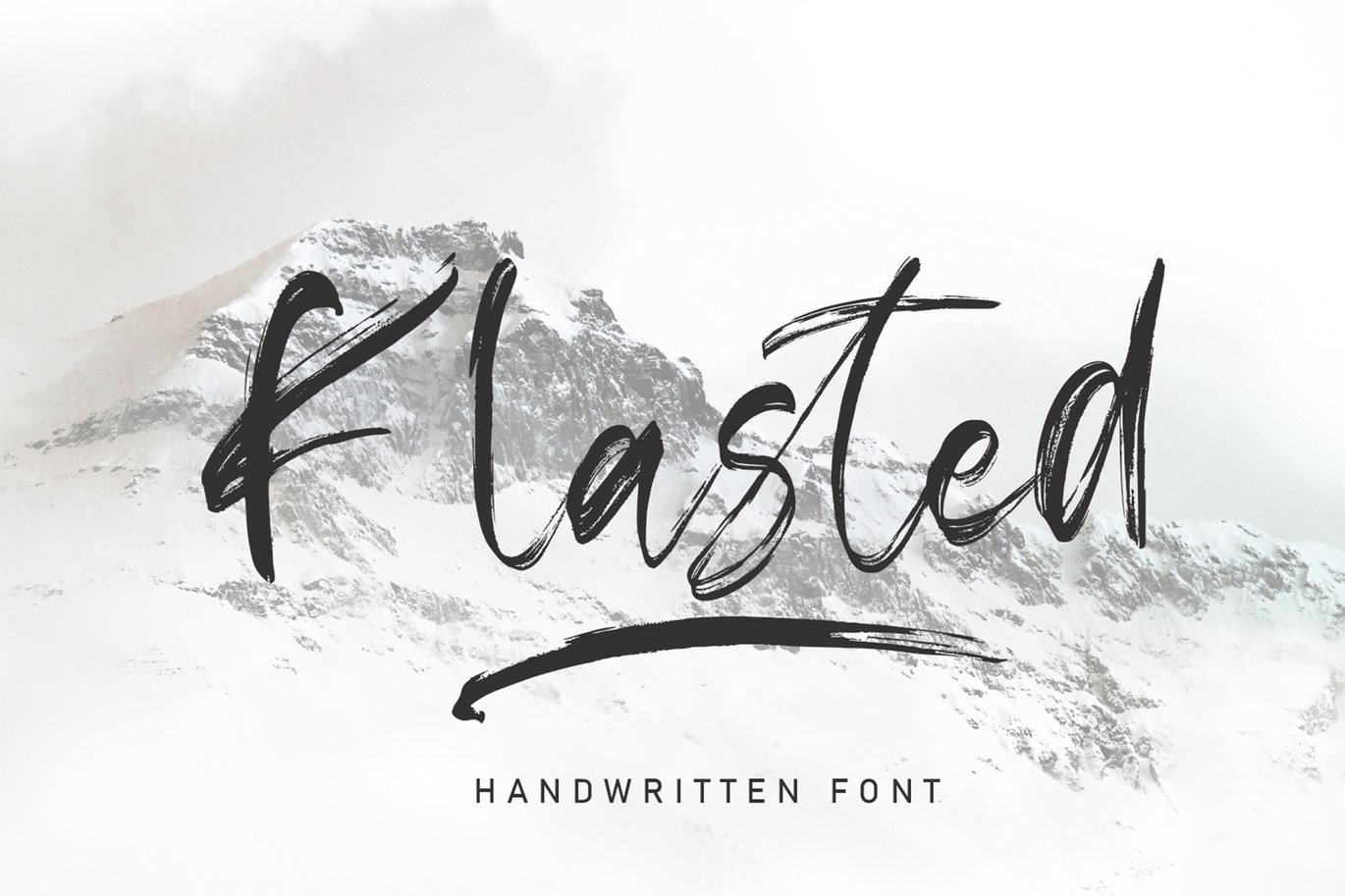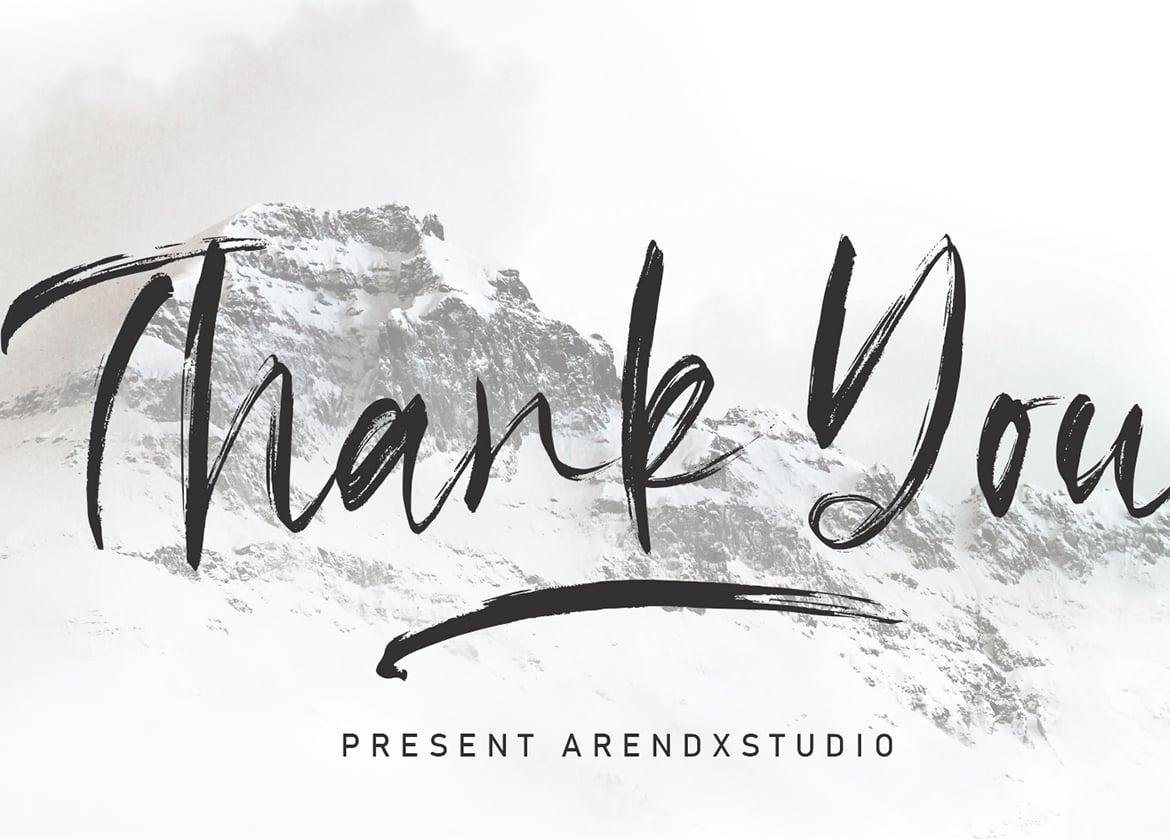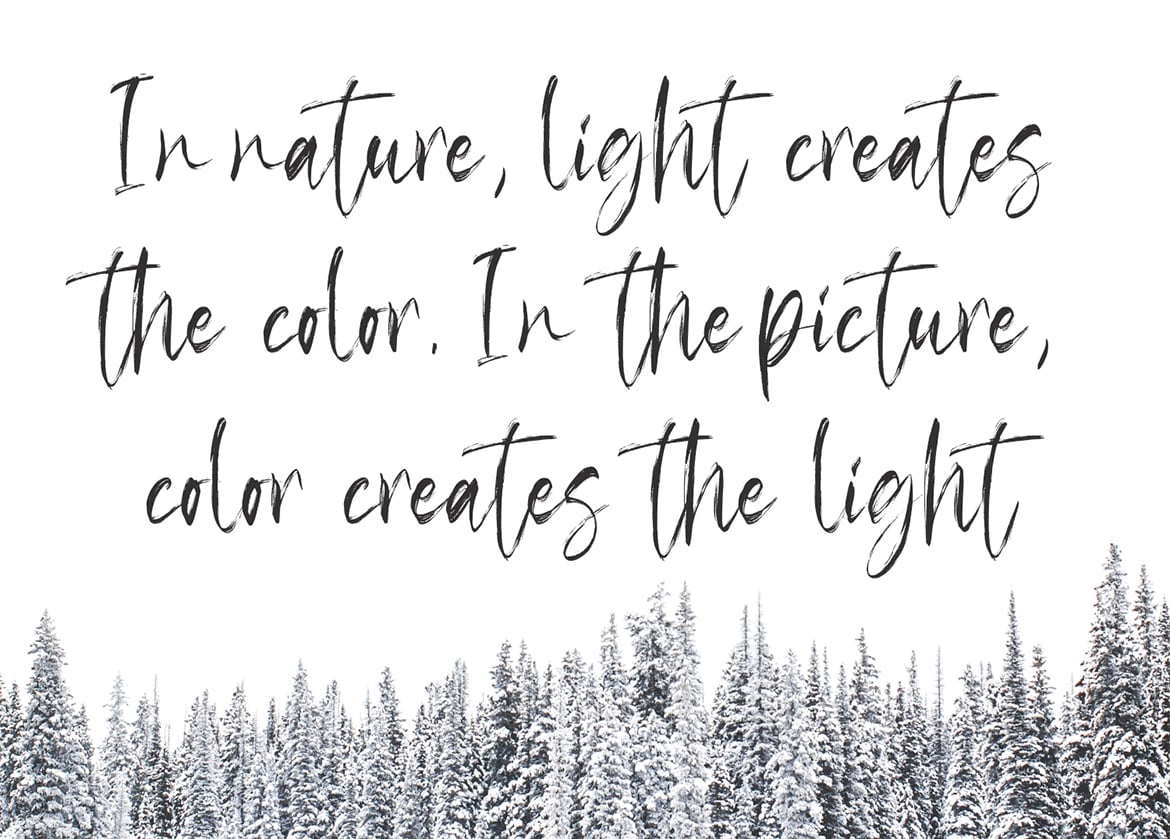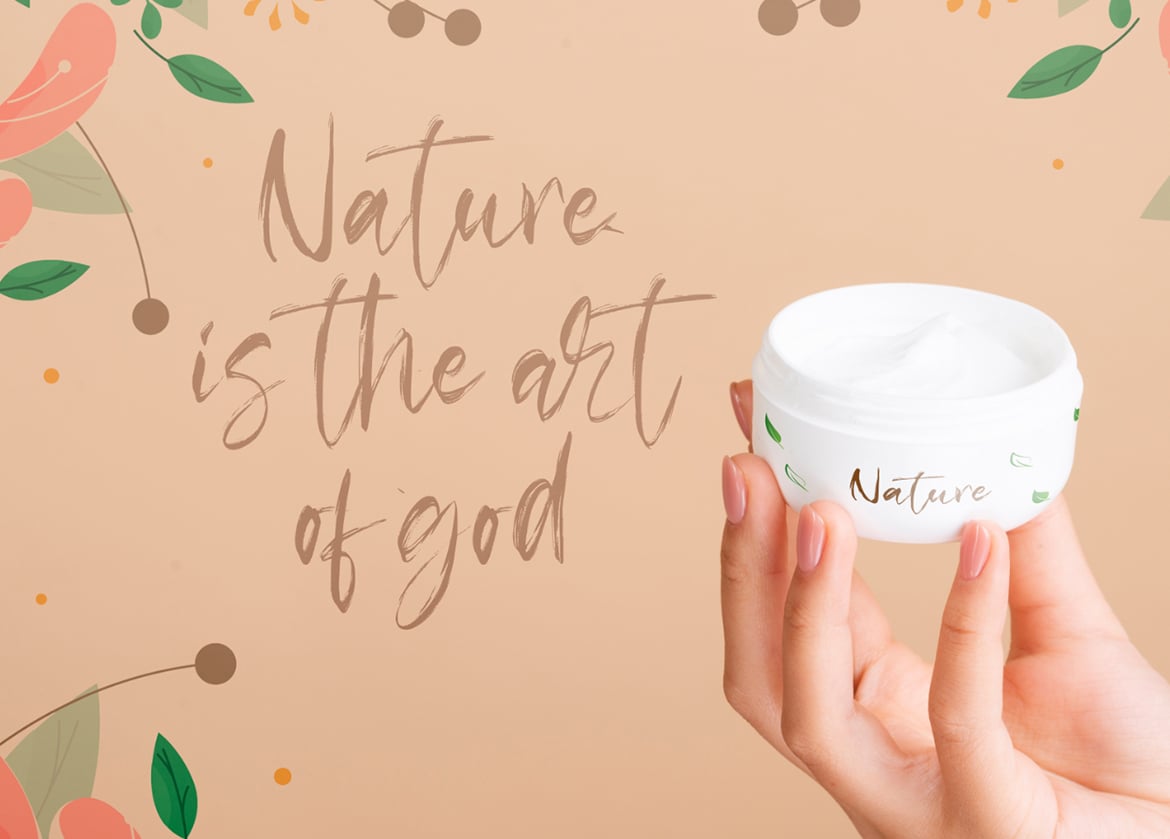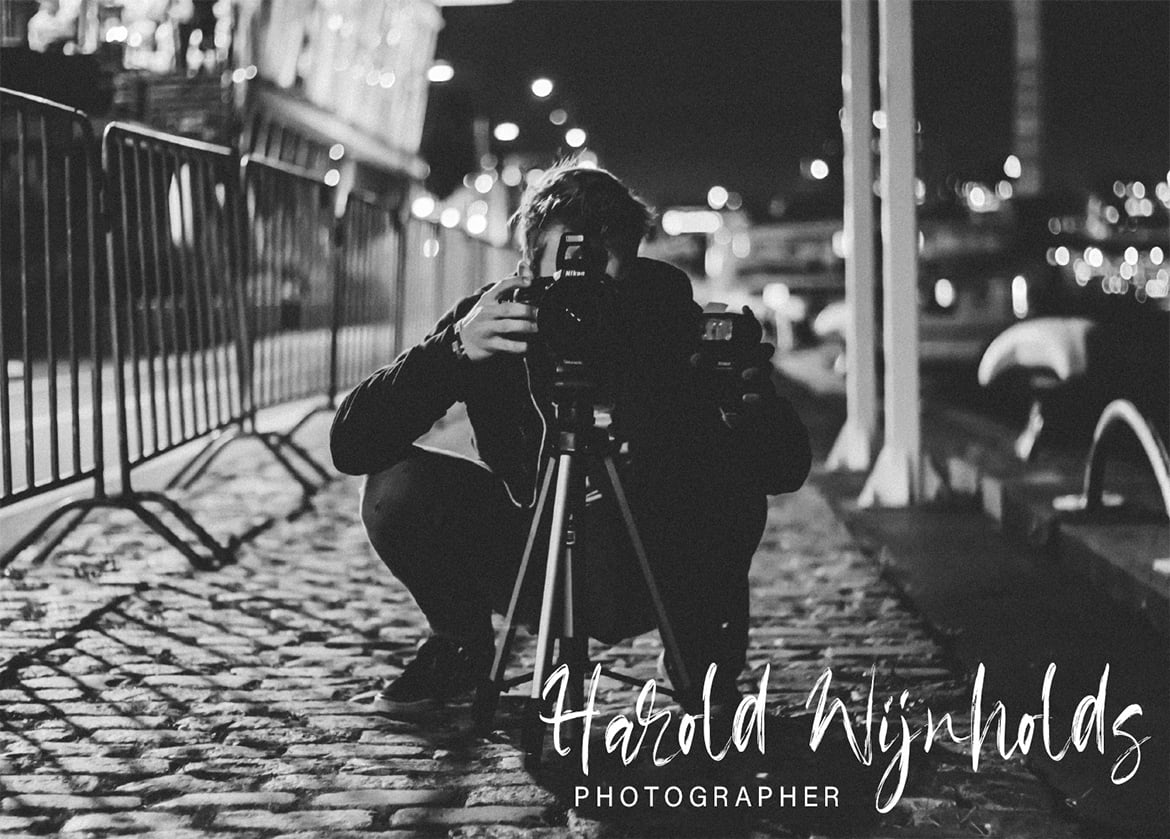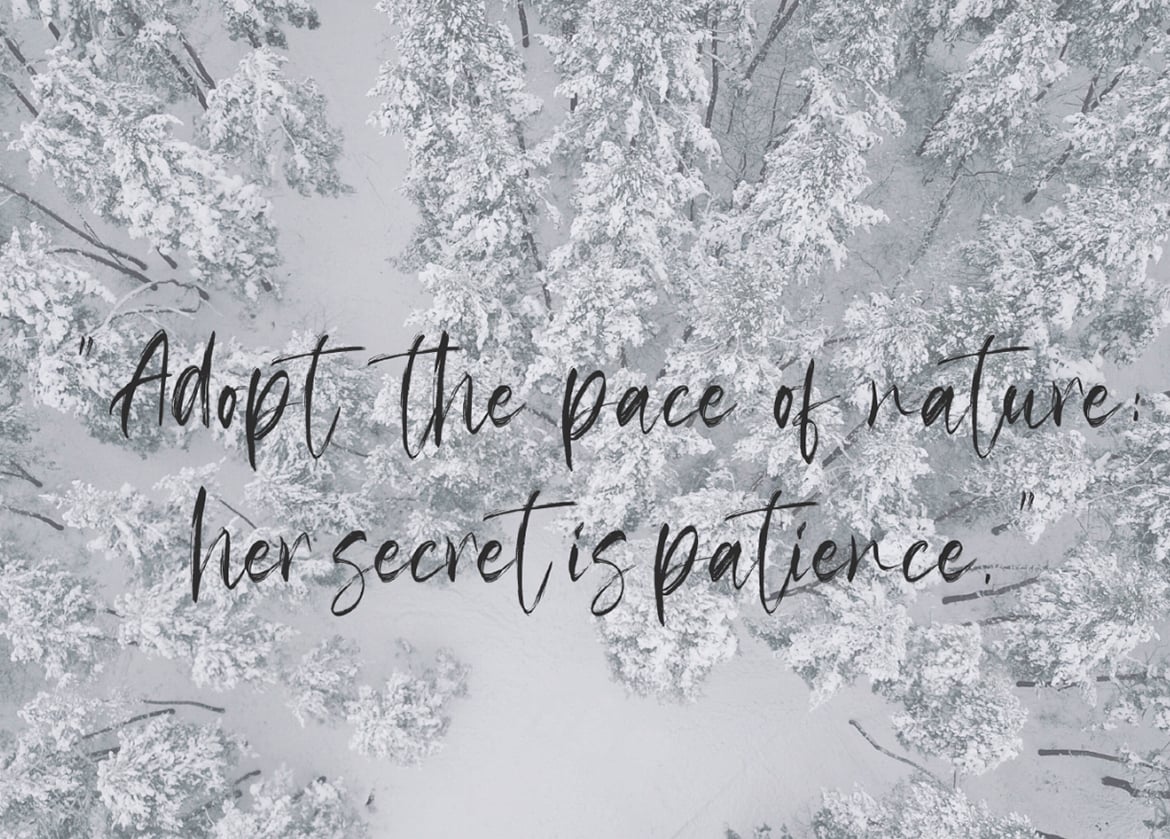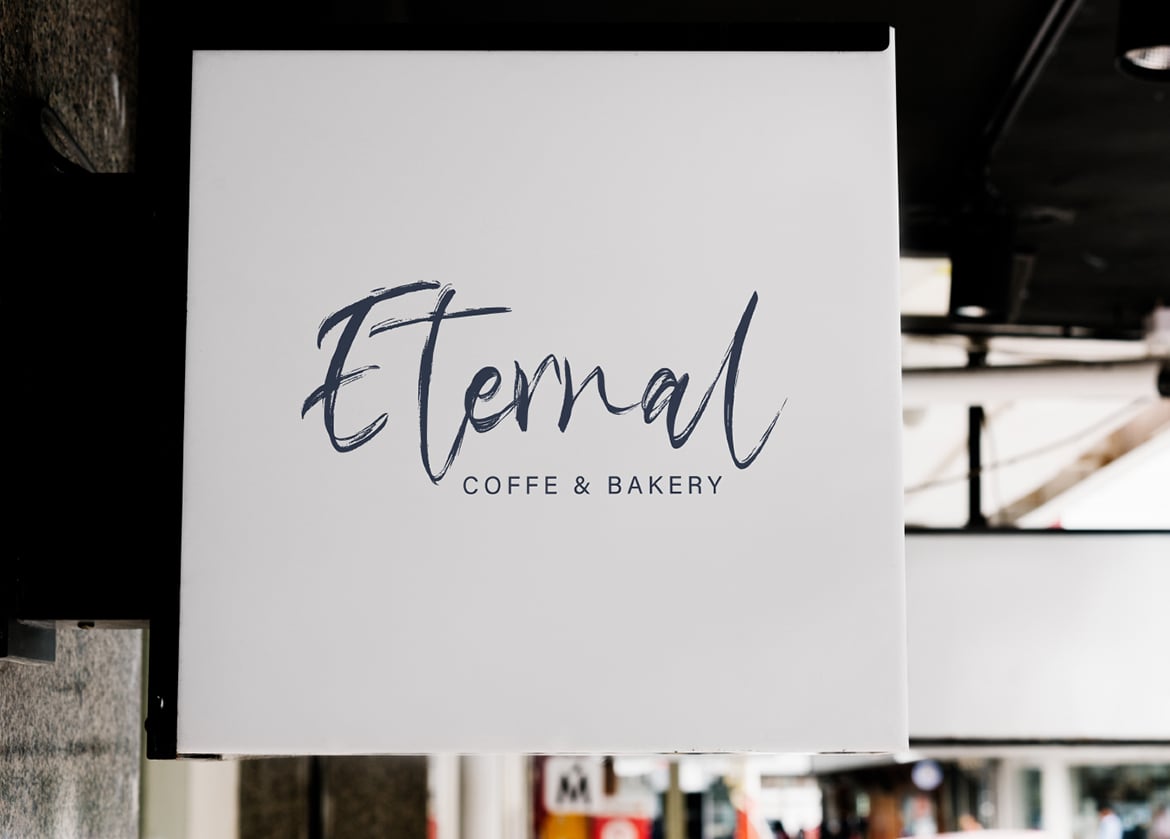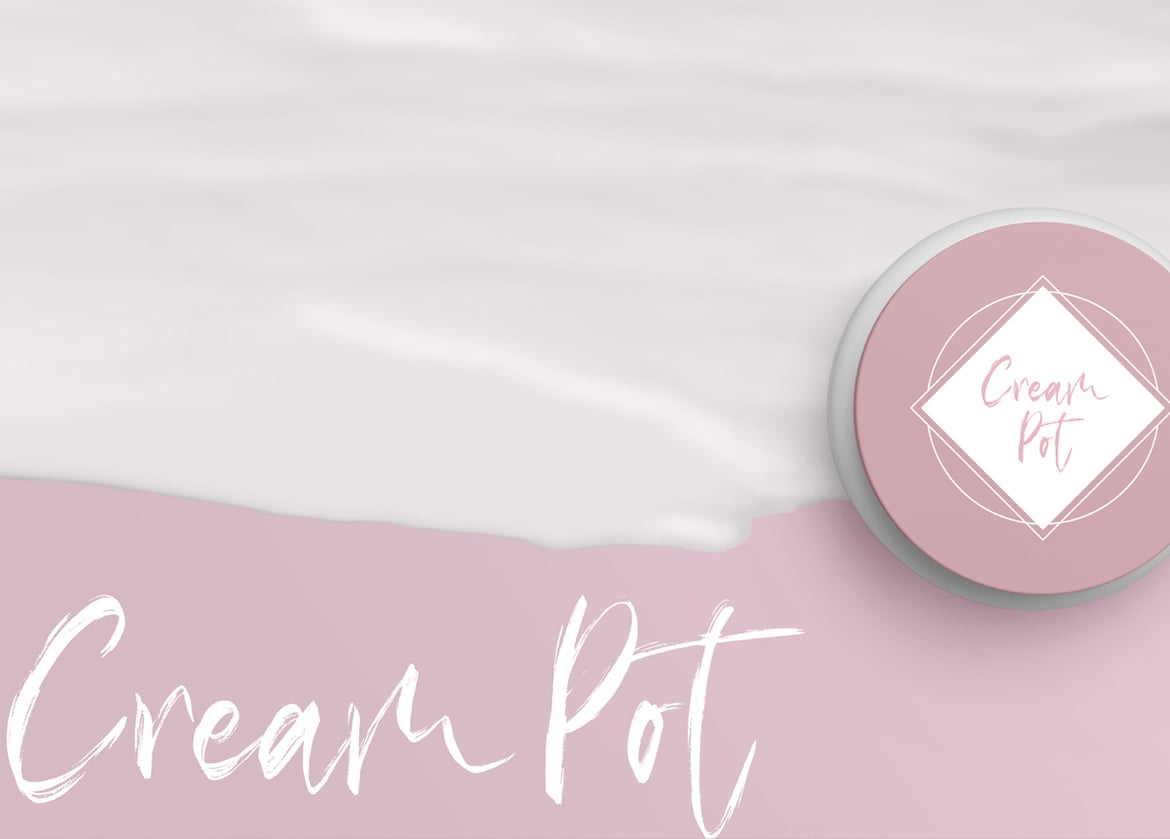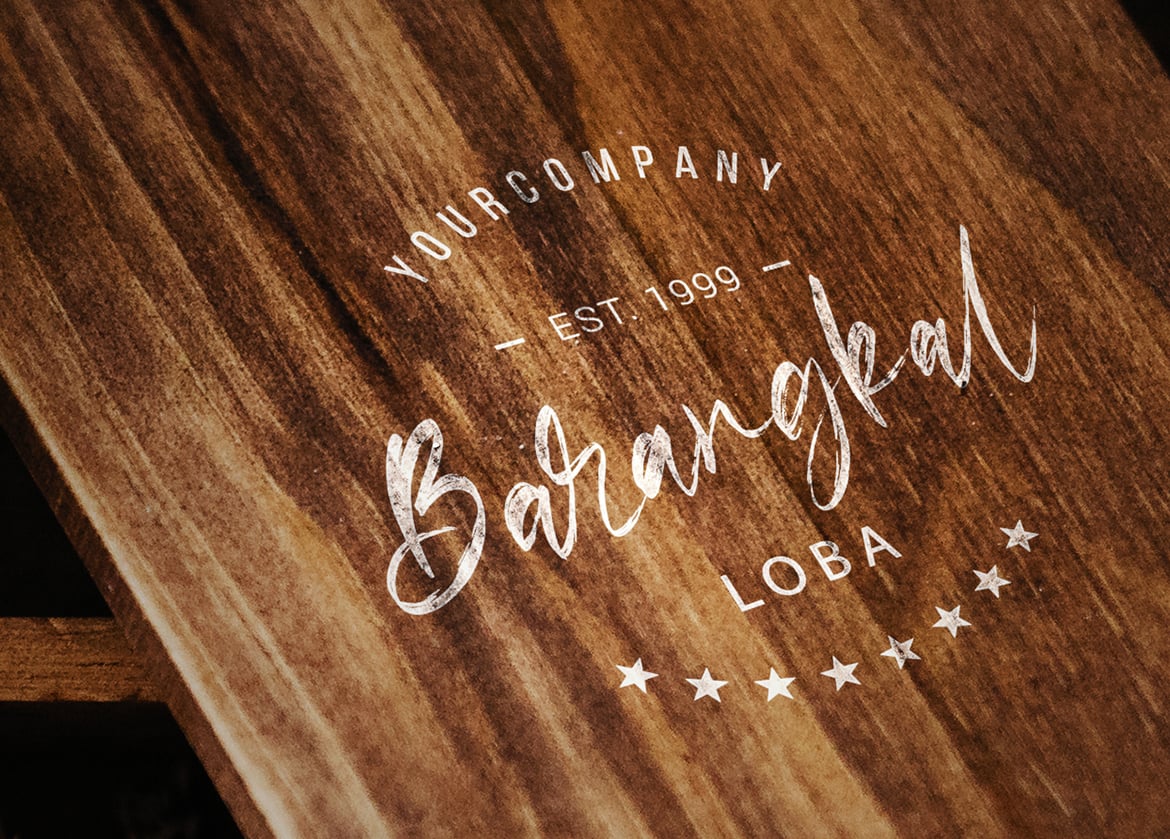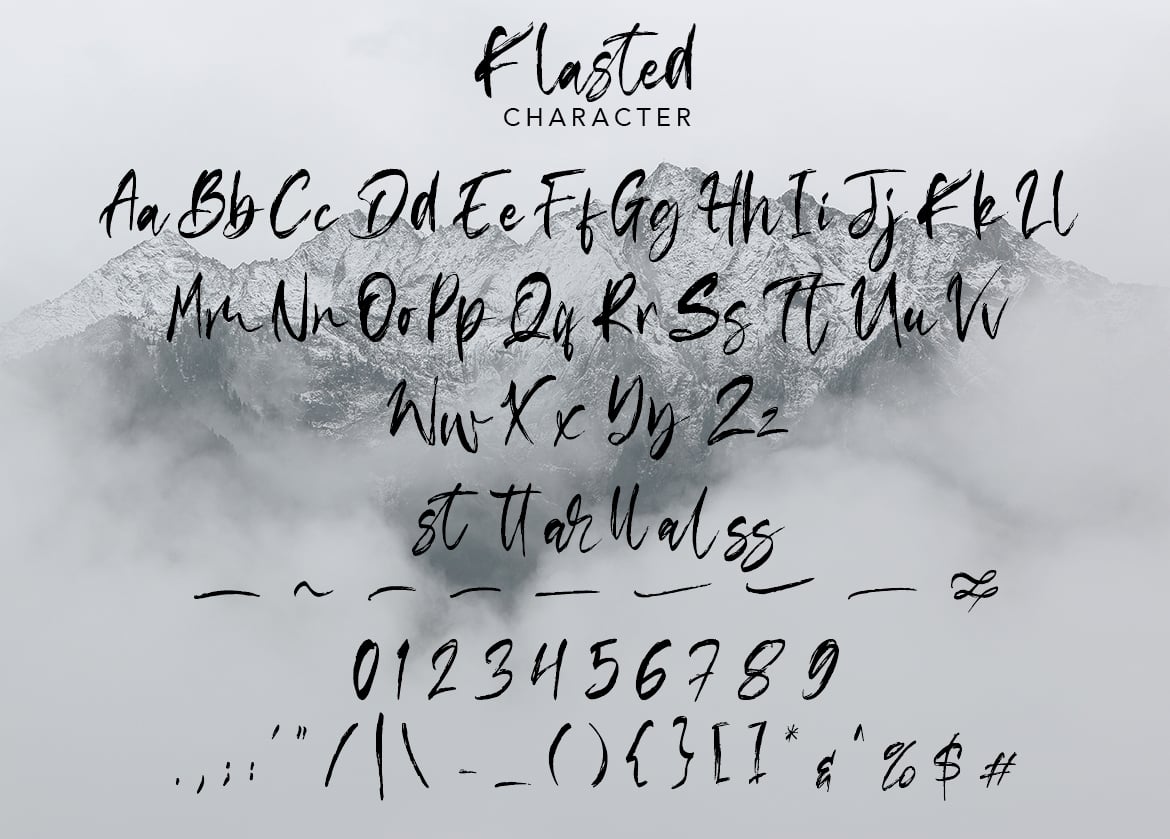
Klasted Brush Font
Klasted Brush Script Font is a font with distinctive handwritten characters perfect for branding projects, logos, wedding designs, media posts, advertisements, product packaging, product designs, labels, photography, watermarks, invitations, stationery, and any project who need handwritten dishes.